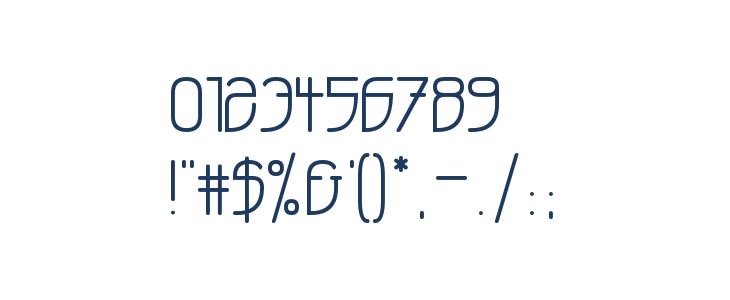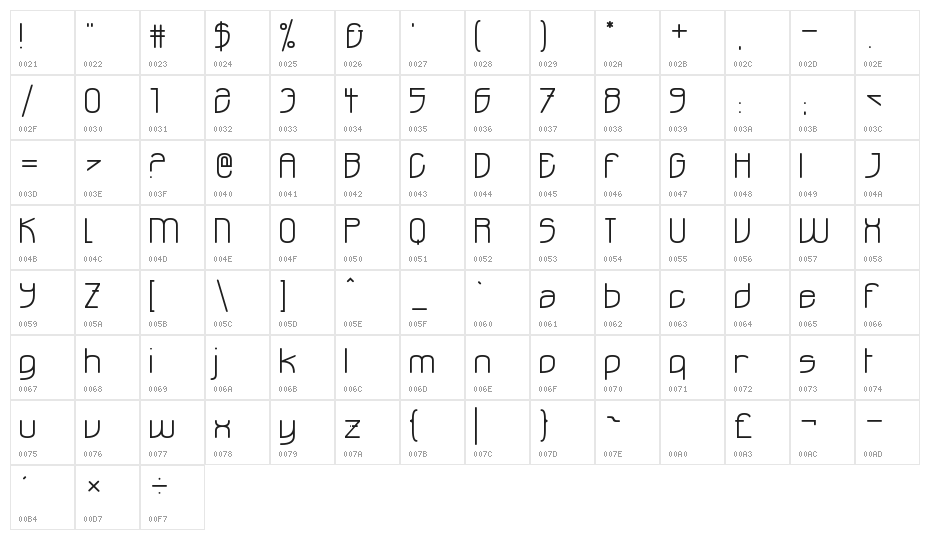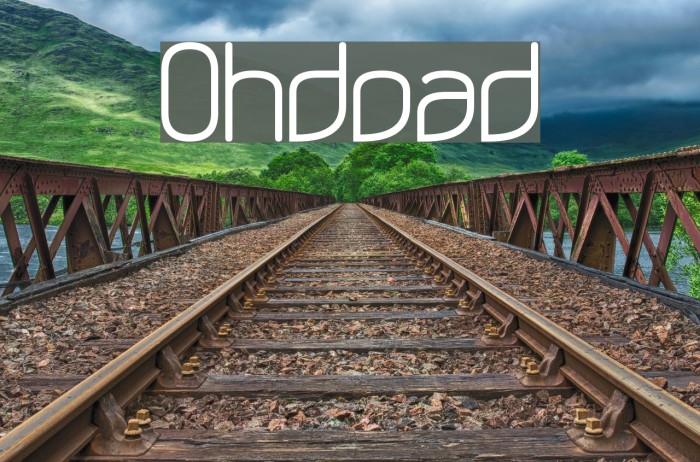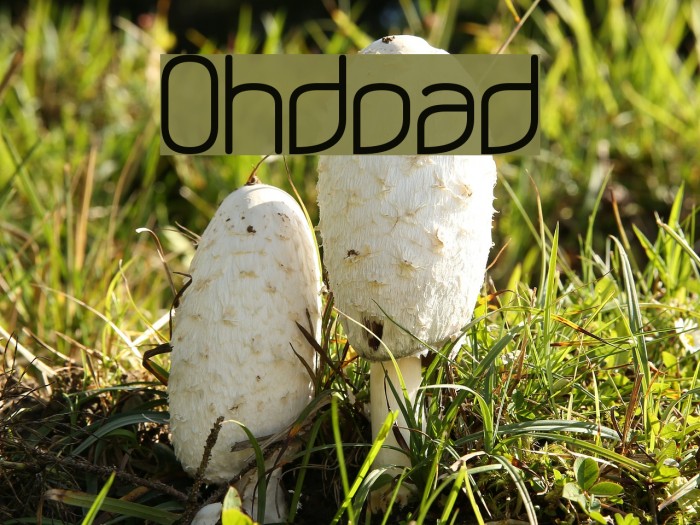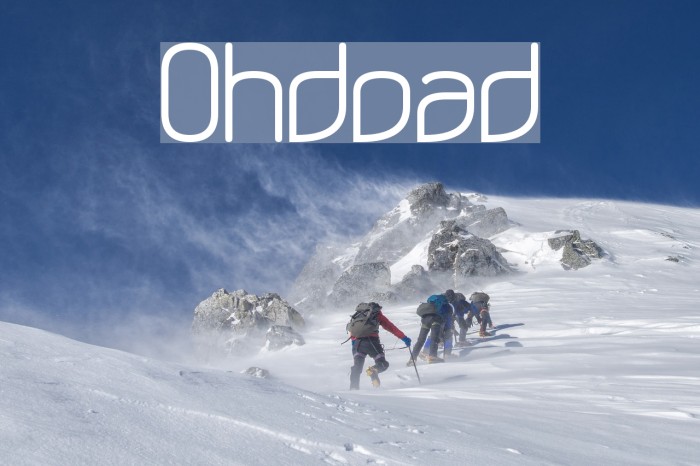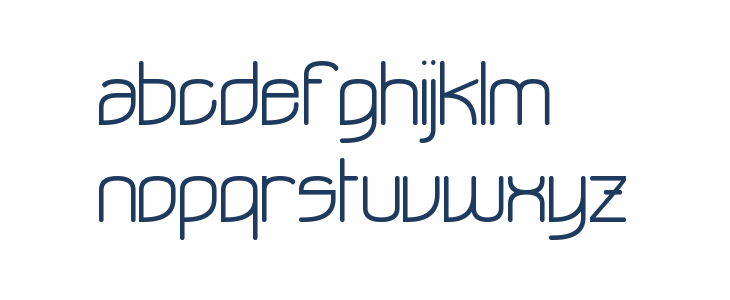
Ohdoad Font
Ohdoad Description
This font features a modern, geometric design with clean, rounded edges and a uniform line weight. The characters are constructed with a consistent stroke width, giving it a sleek and contemporary appearance. The uppercase letters are tall and narrow, while the lowercase letters maintain a similar height, creating a cohesive look. The numerals and special characters follow the same design principles, ensuring harmony across all glyphs. The overall style is minimalist, making it suitable for a variety of design applications.
| Use Case | Headlines, Logos, User Interfaces |
| Proposed Projects | Ideal for tech branding, modern websites, app interfaces, and minimalist posters. |